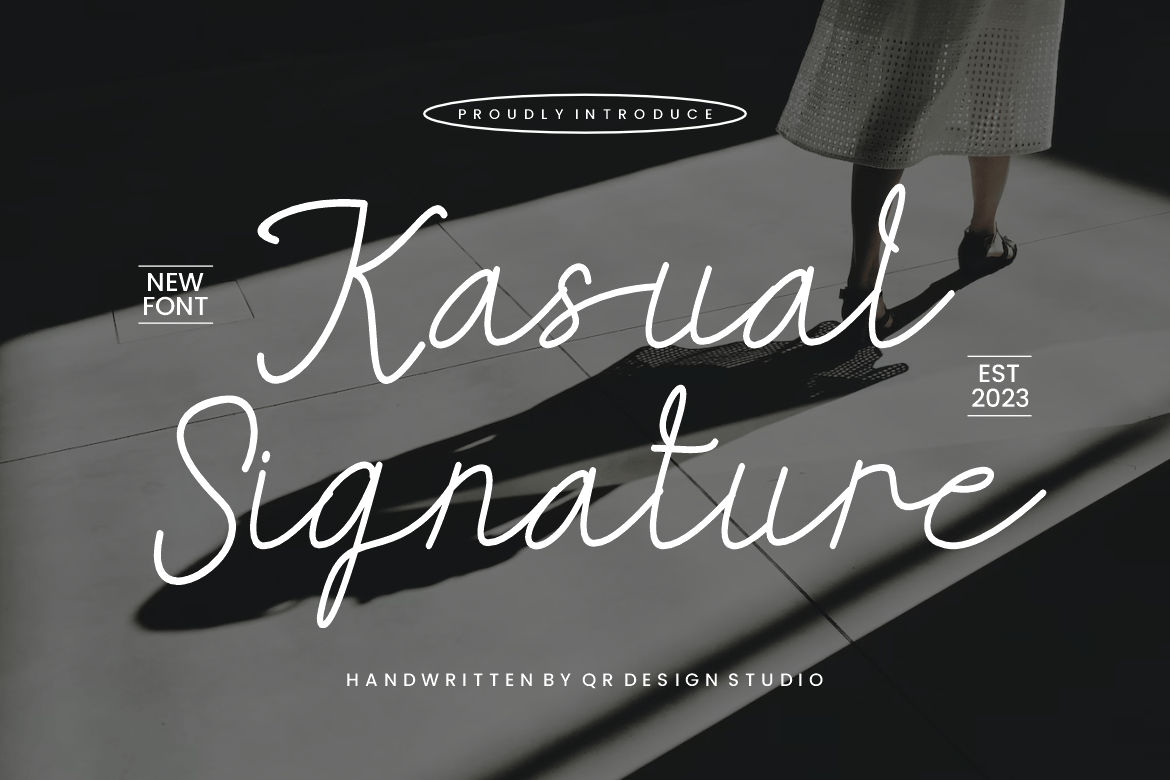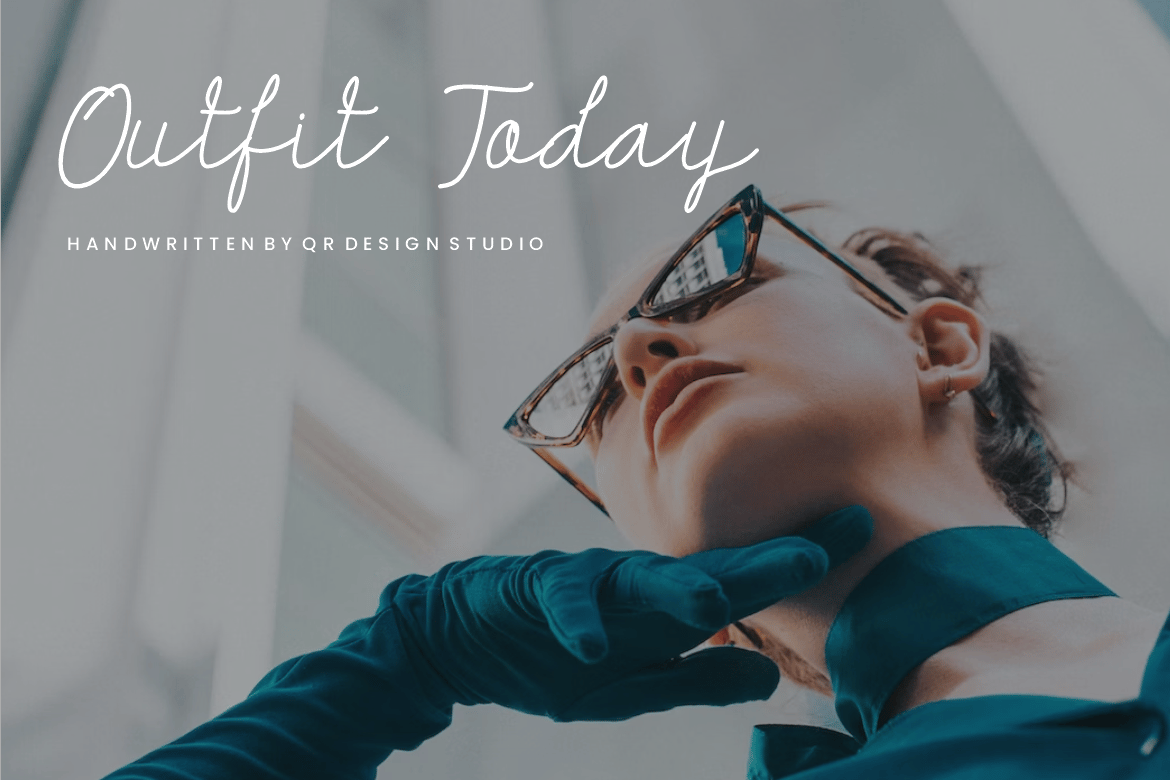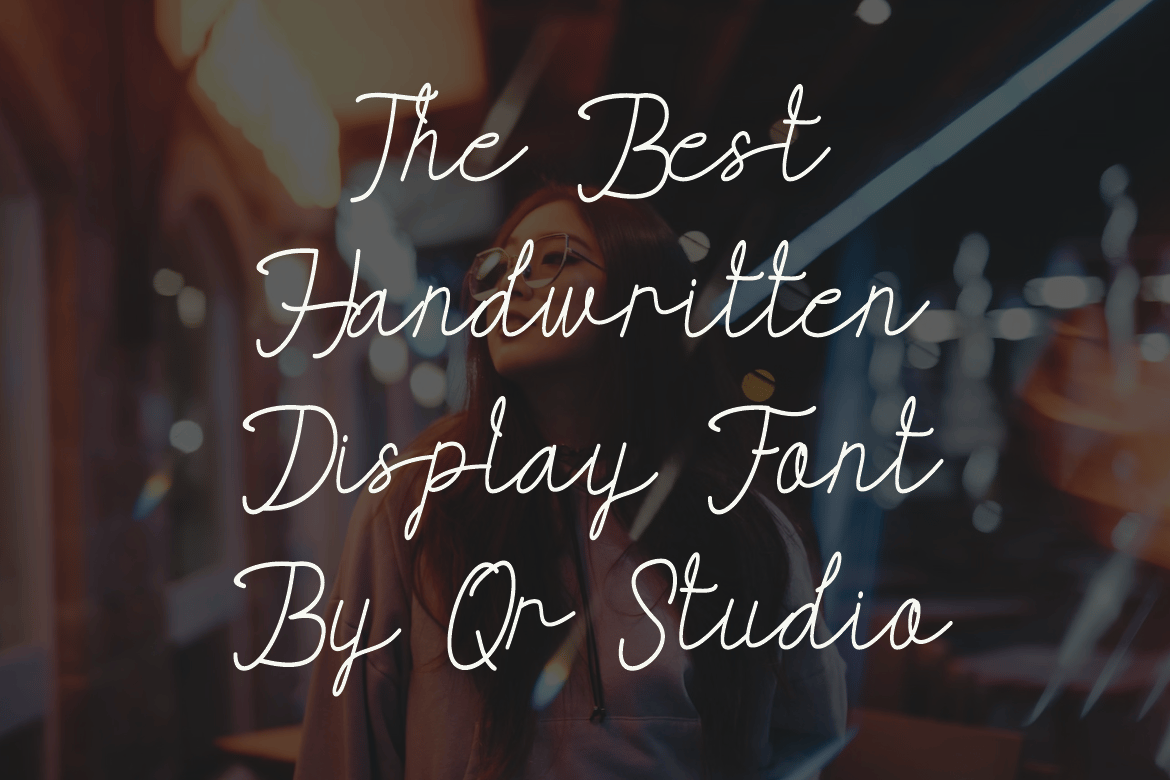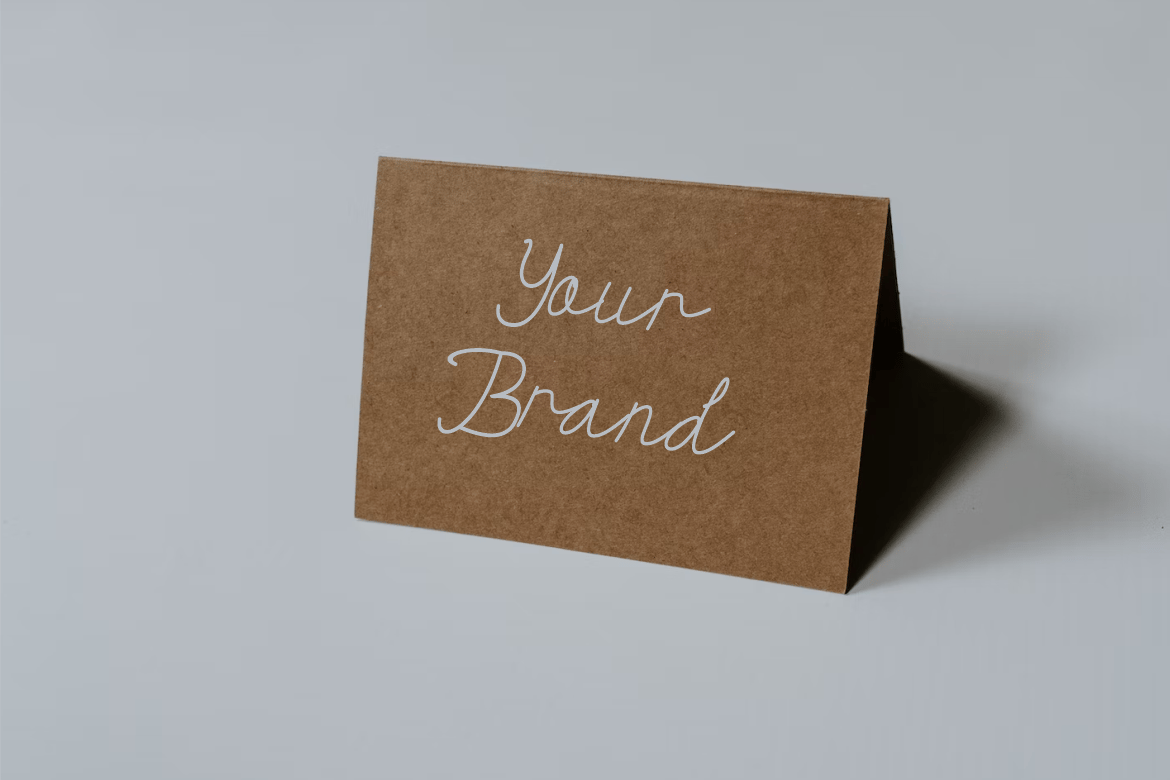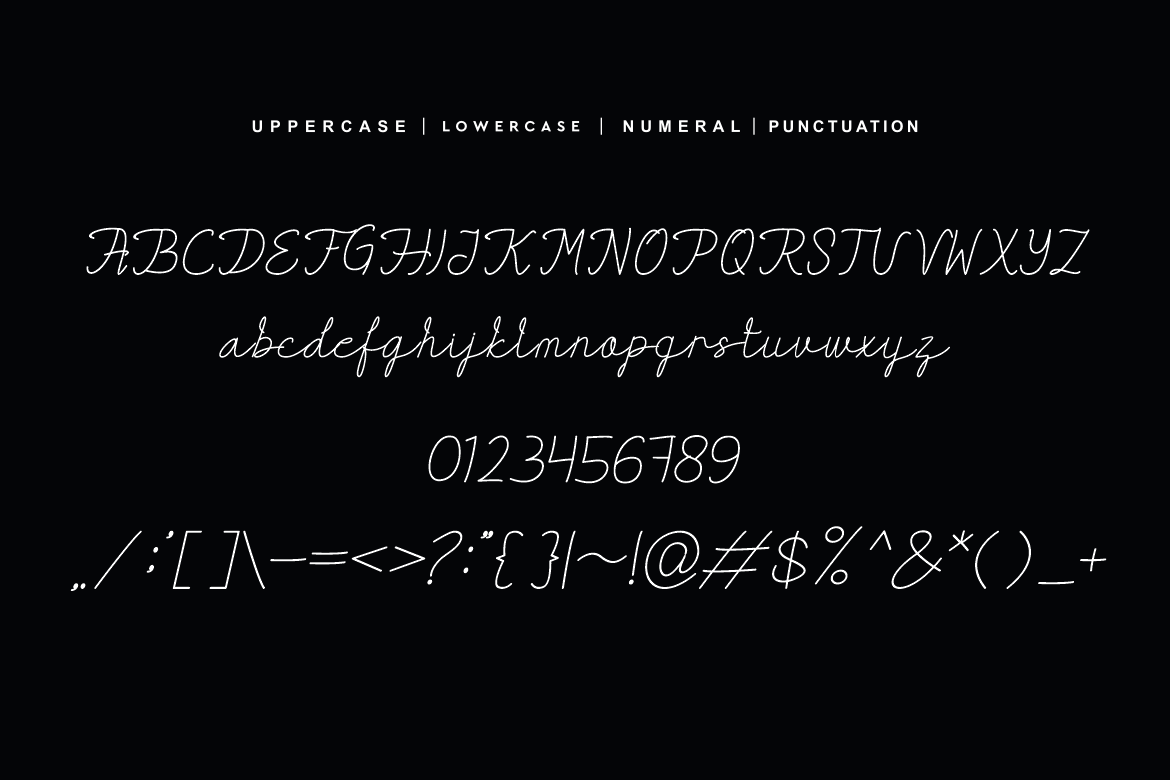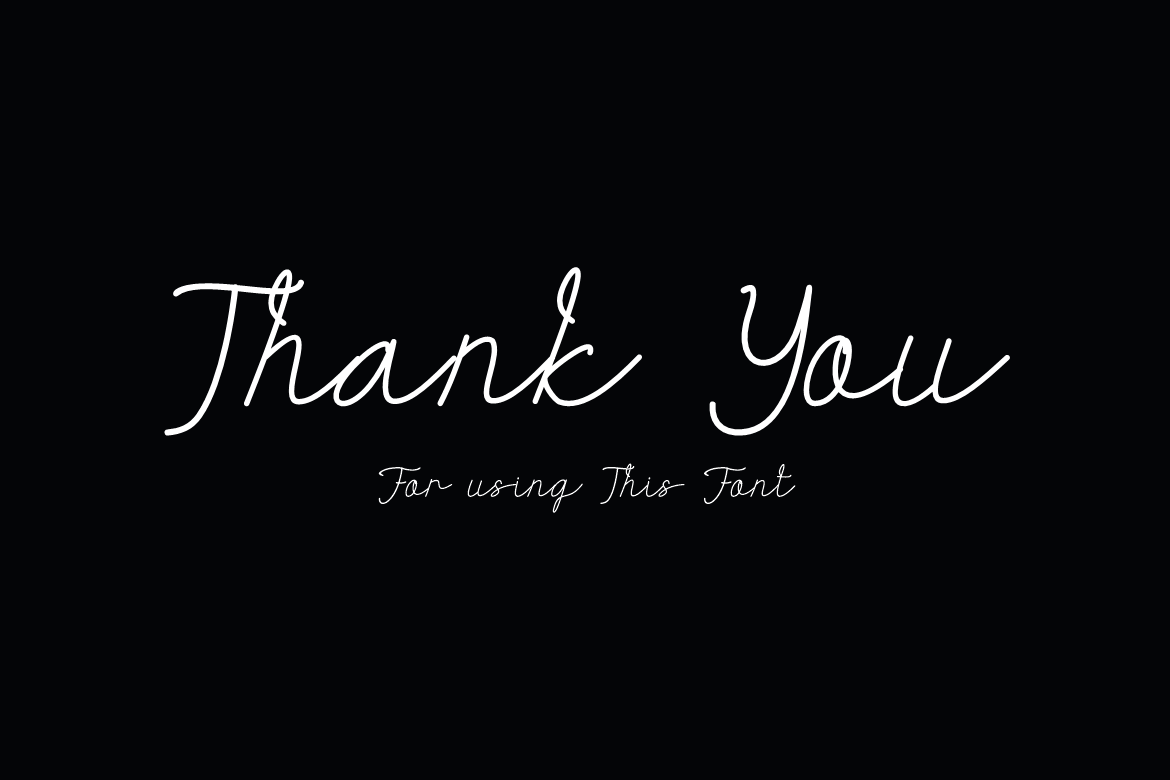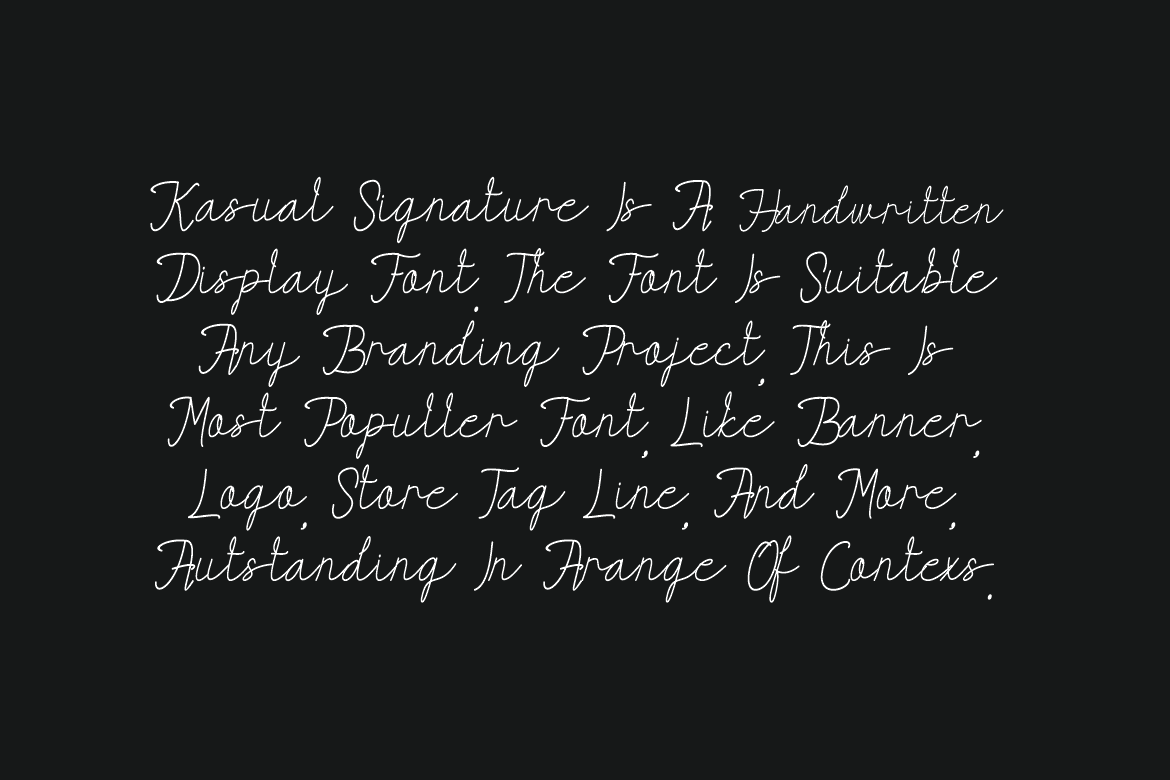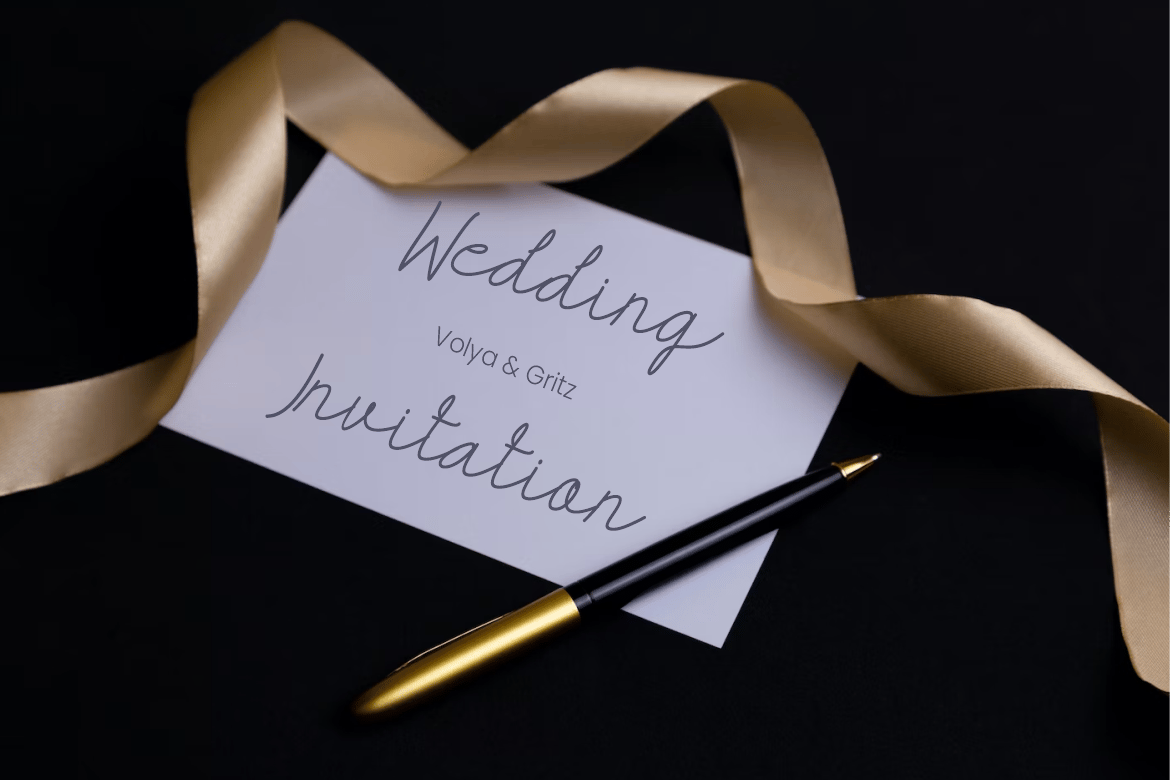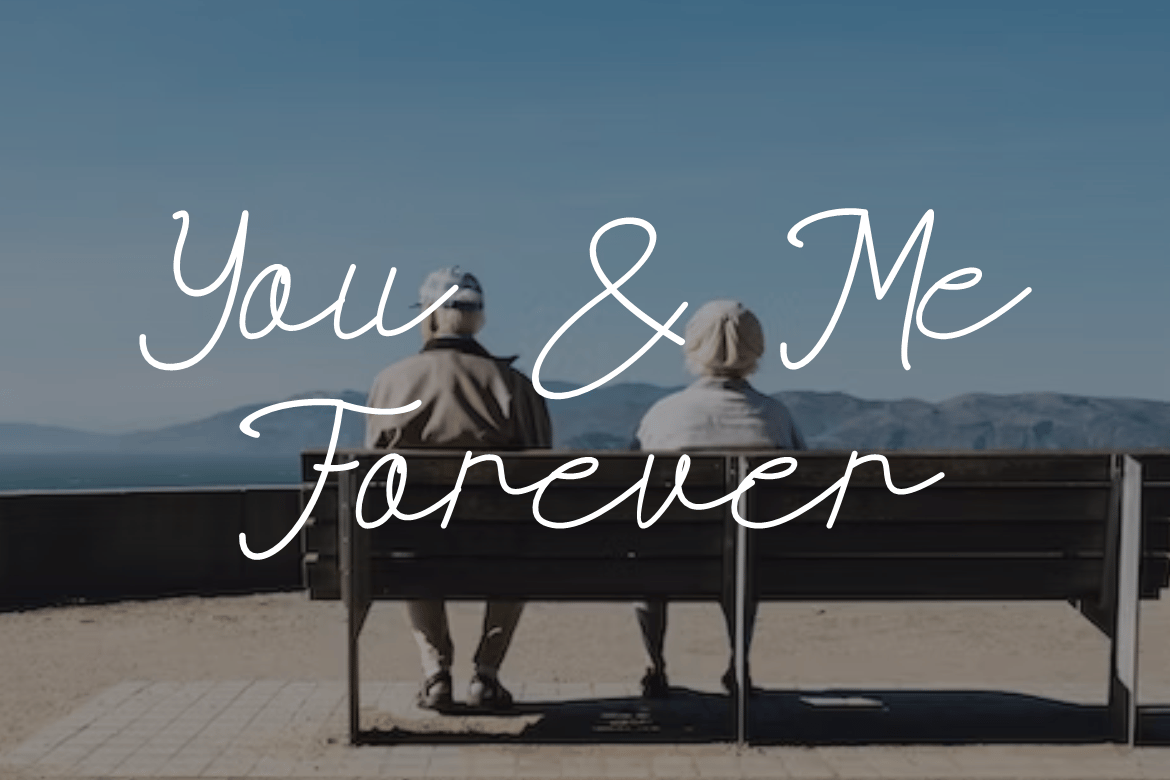
Kasual Signature – Cursive Font
Kasual Signature – Cursive Font is a bold and authentic display font.
The font is suitable for any branding project like poster, food, wedding card, logo, sport, and many more.
Outstanding in a wide range of contexts.